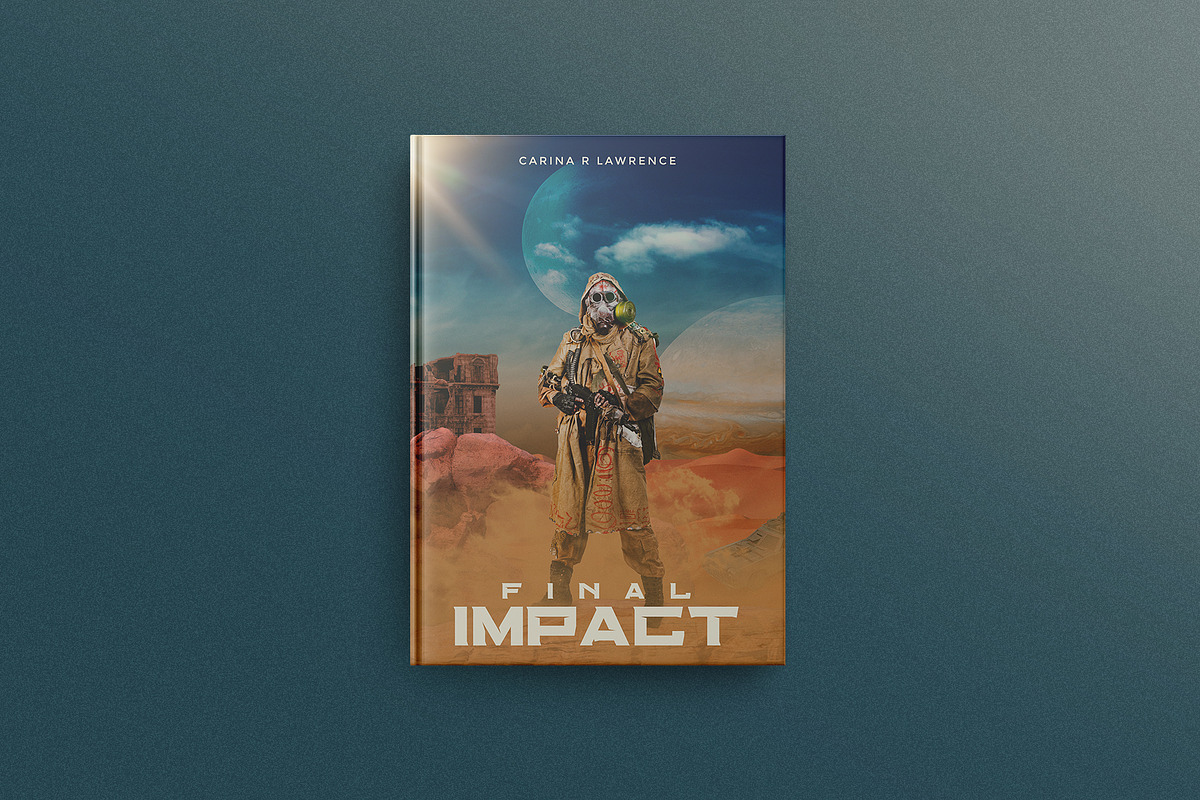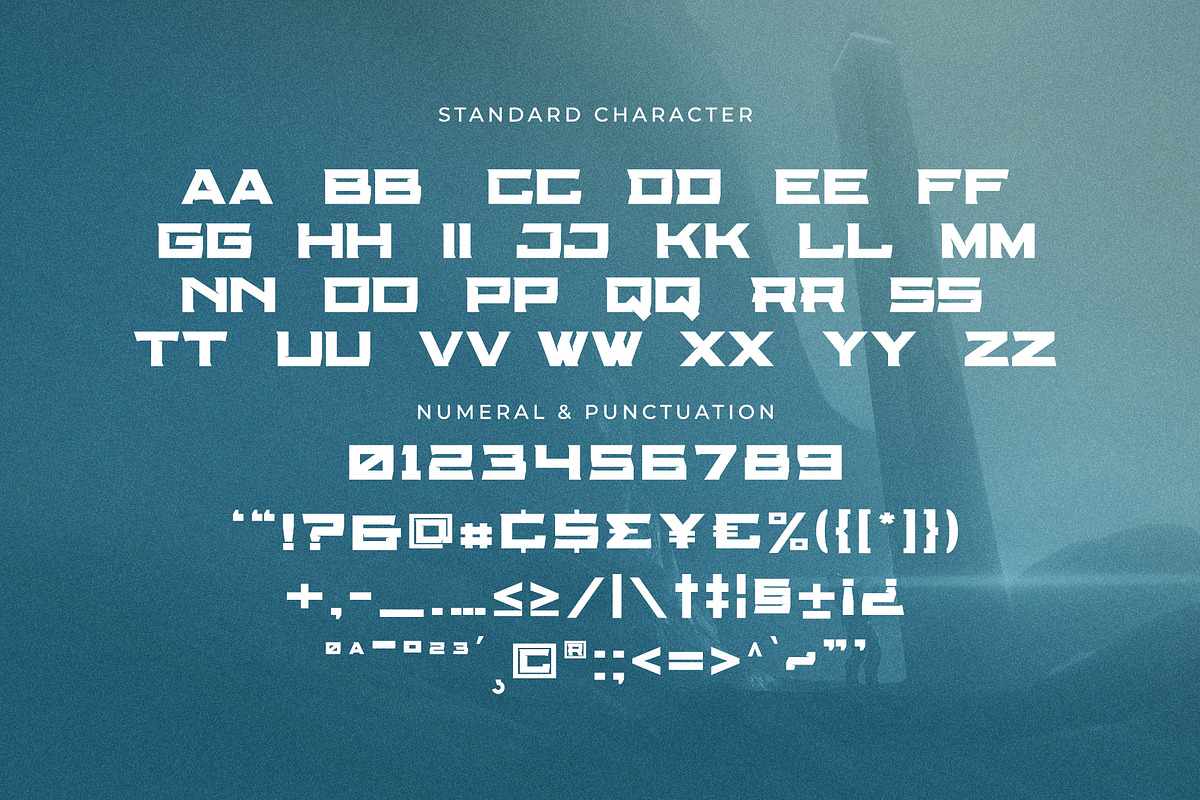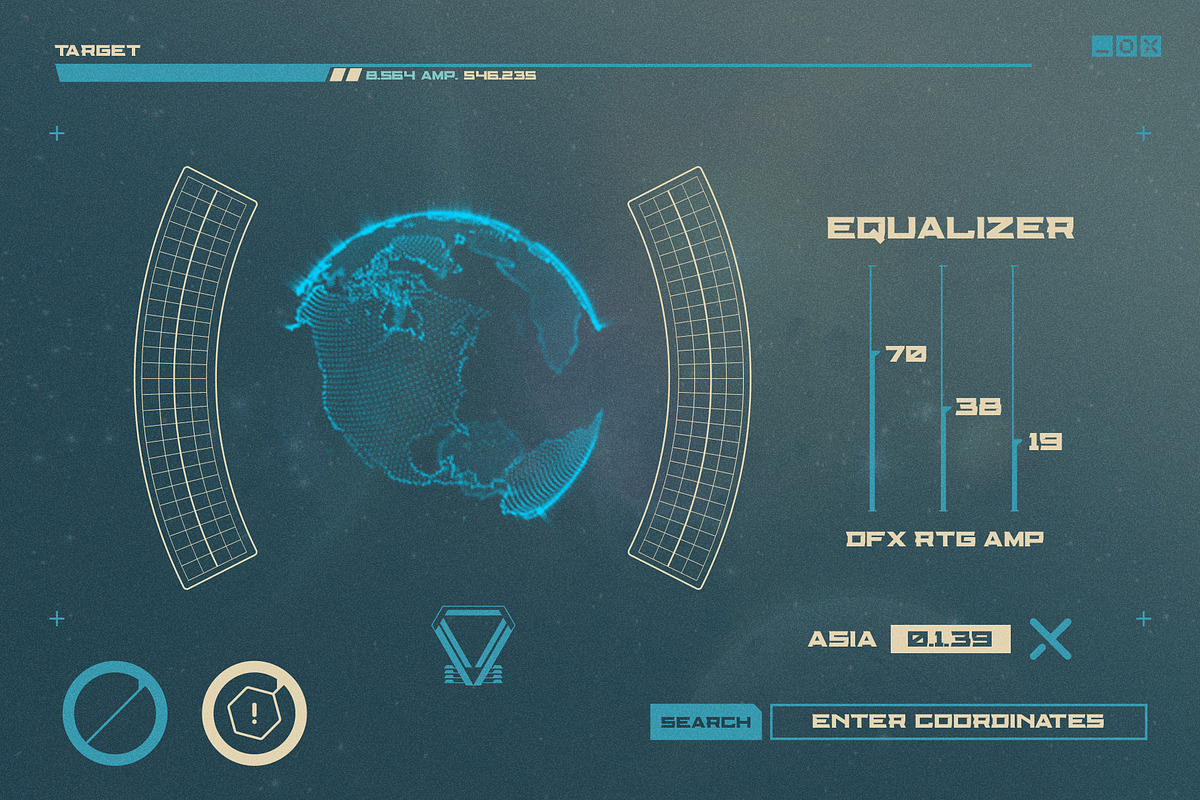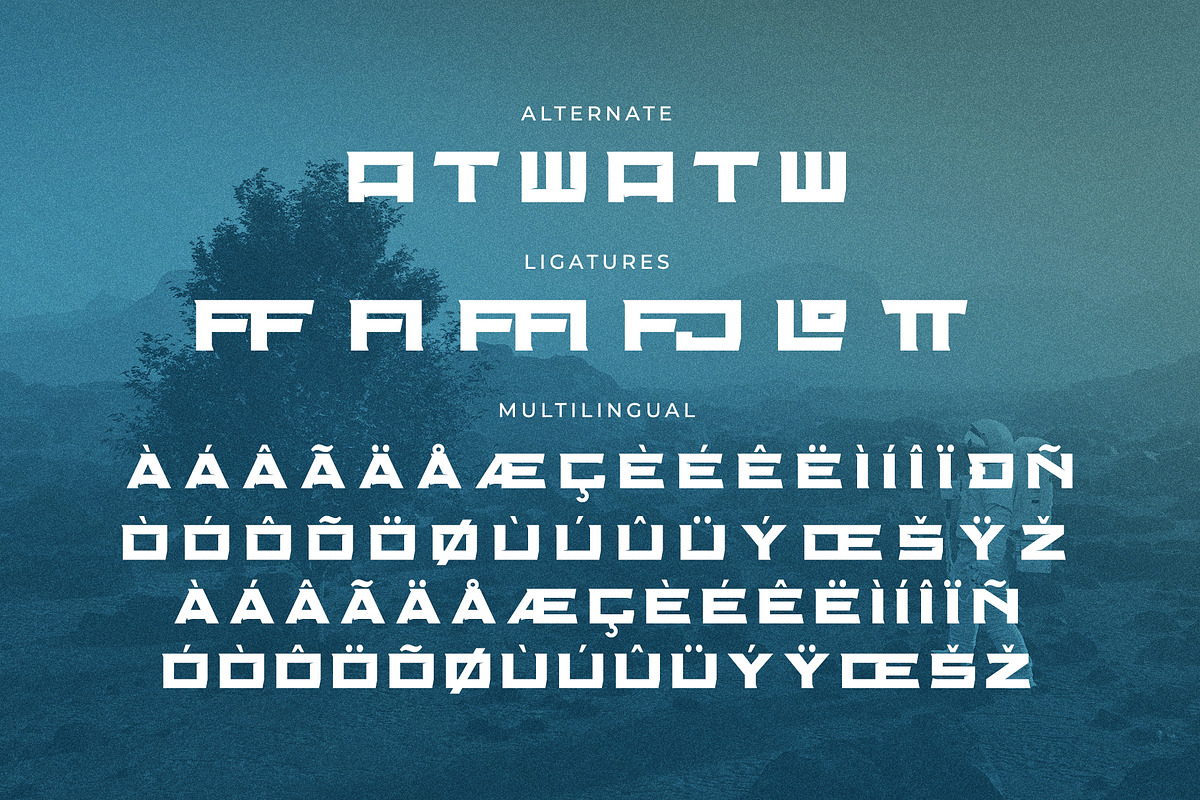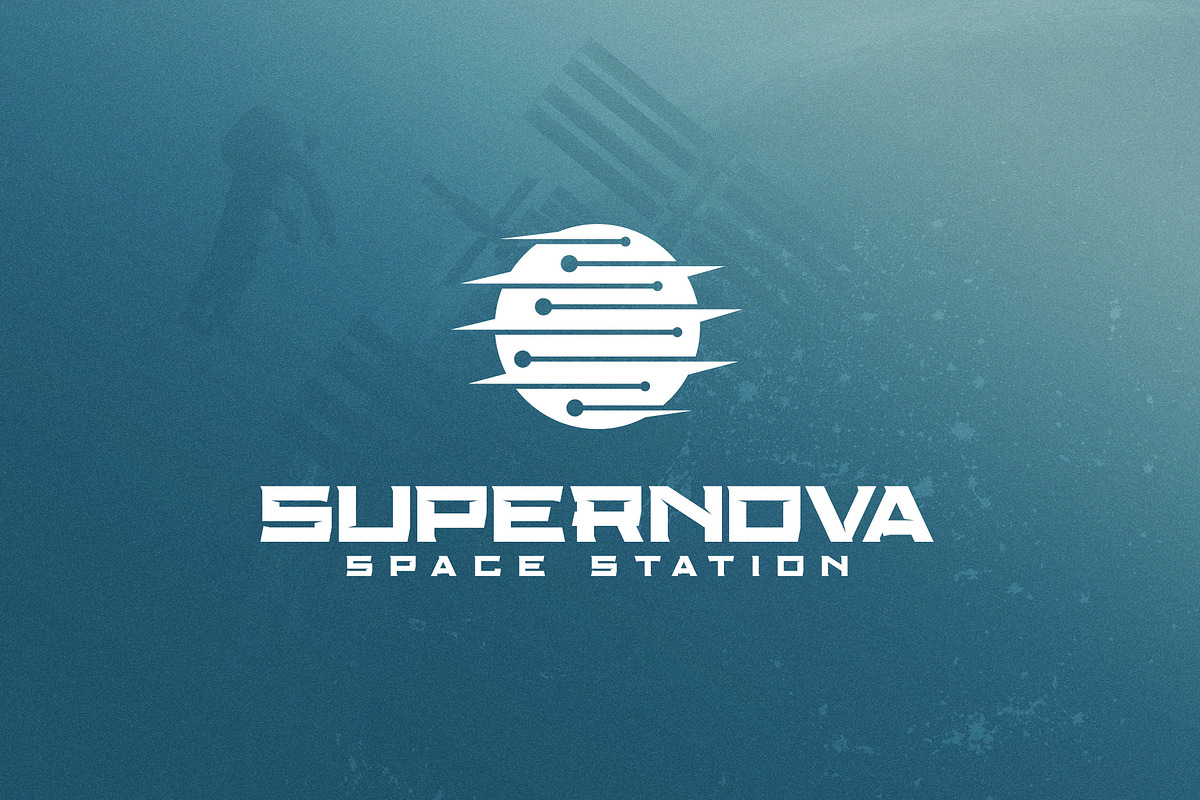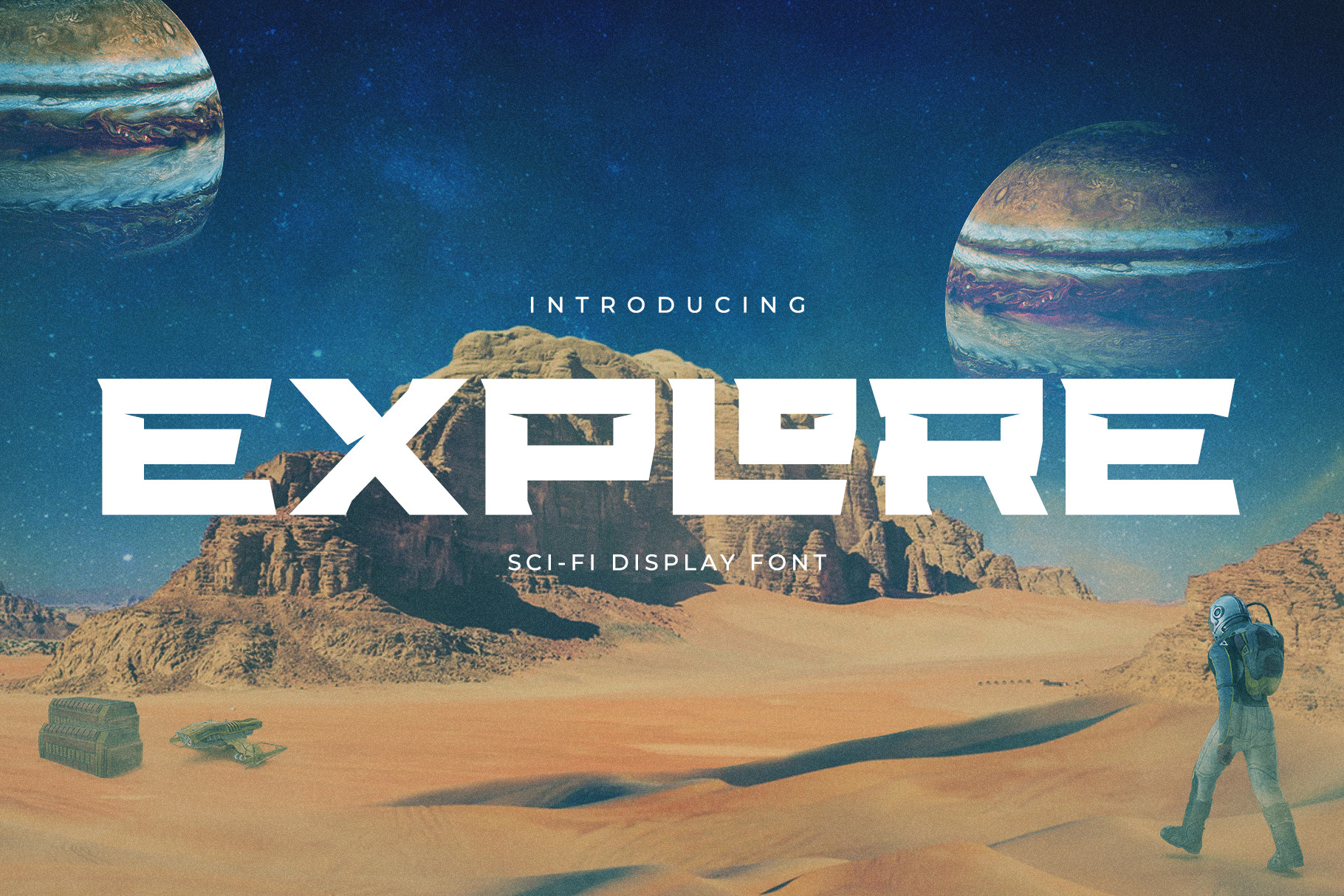
Explore Sci-fi Font
Explore is a display Sci-fi font that is designed to fit perfectly for branding projects, movies, logos, social media posts, posters, books, and many more.
- Uppercase and Lowercase Letters